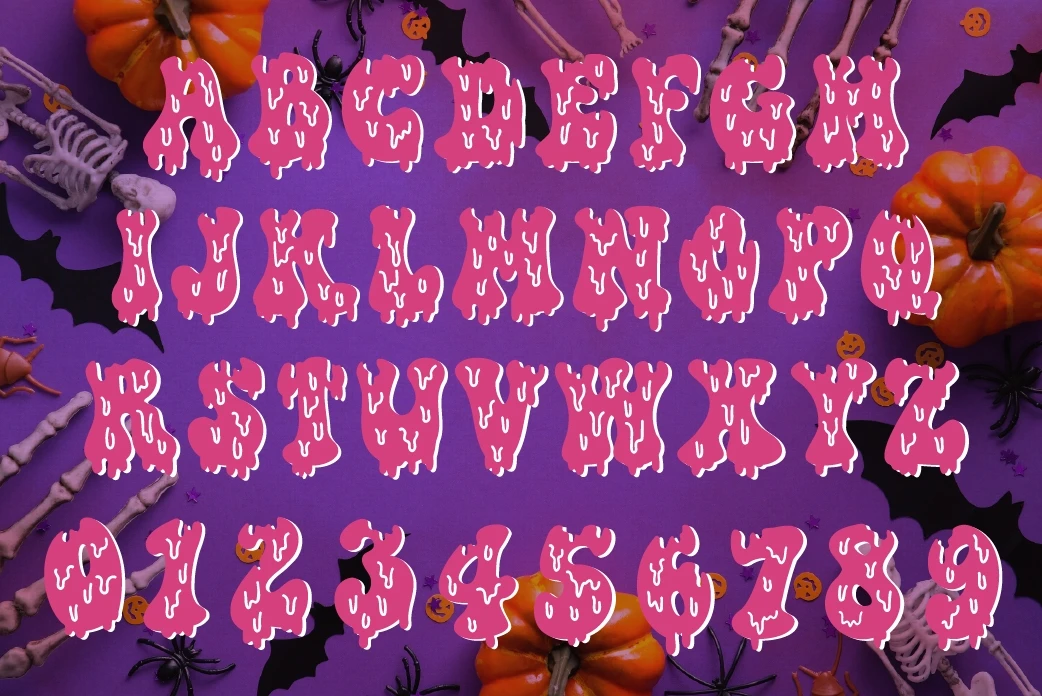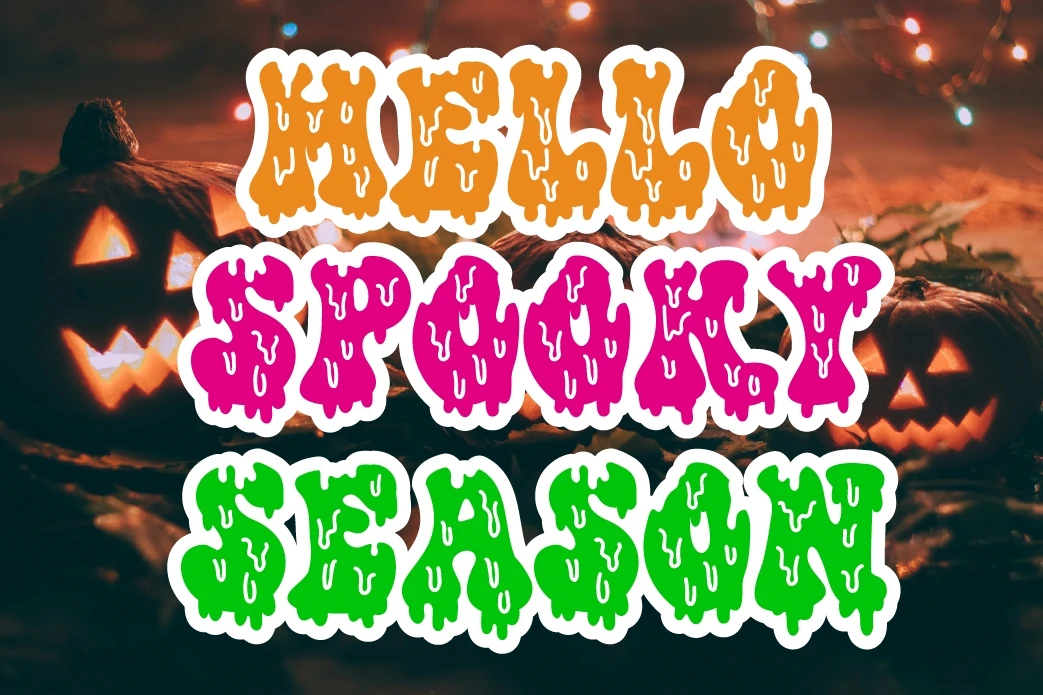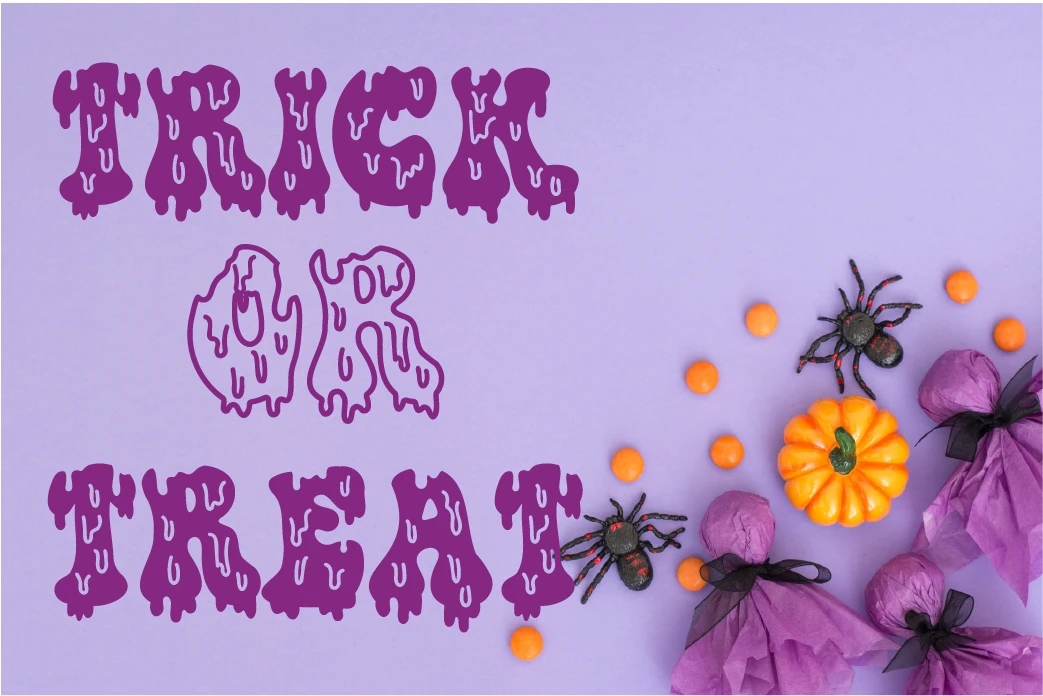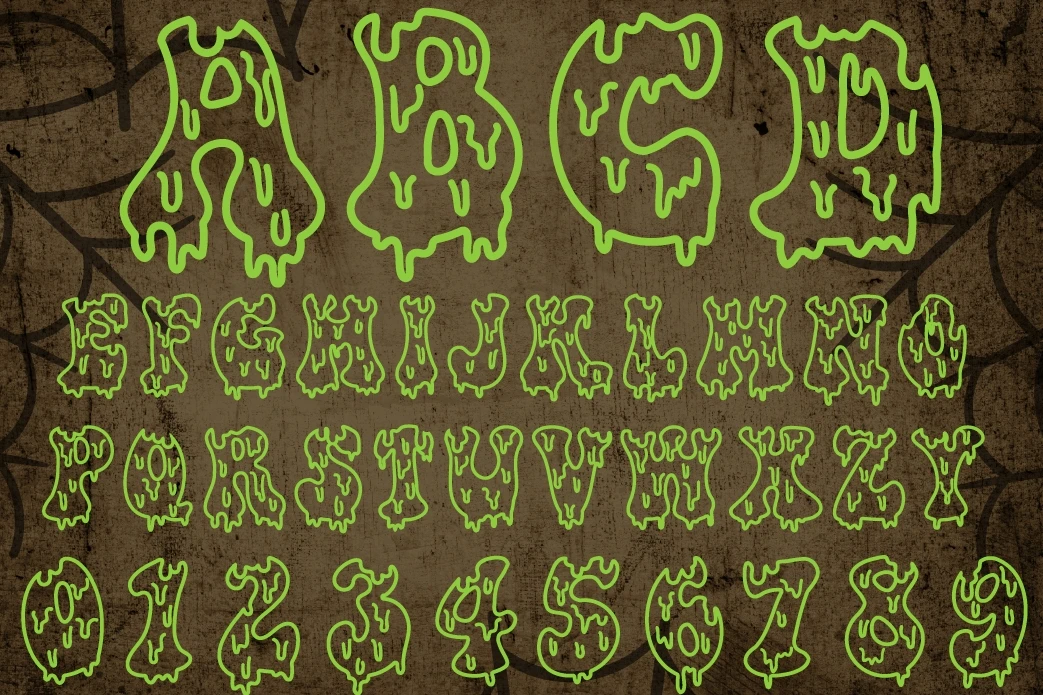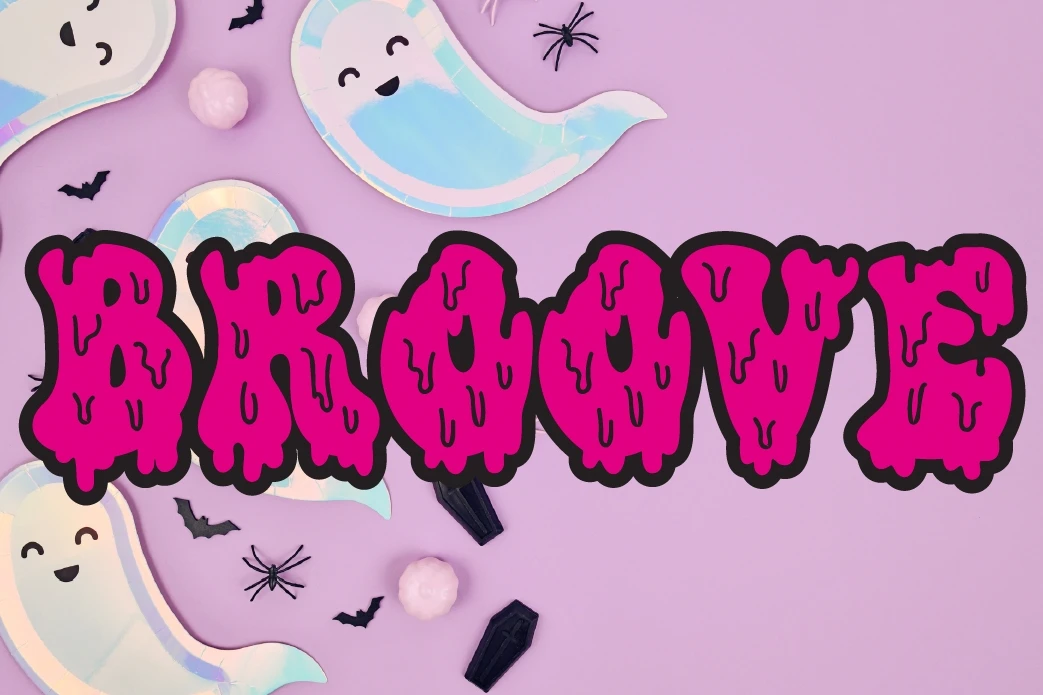
Welcome the Halloween season. " Broove " retro 60s style font The perfect design combination of period letters and drops of blood gives off a cute yet cute vibe.